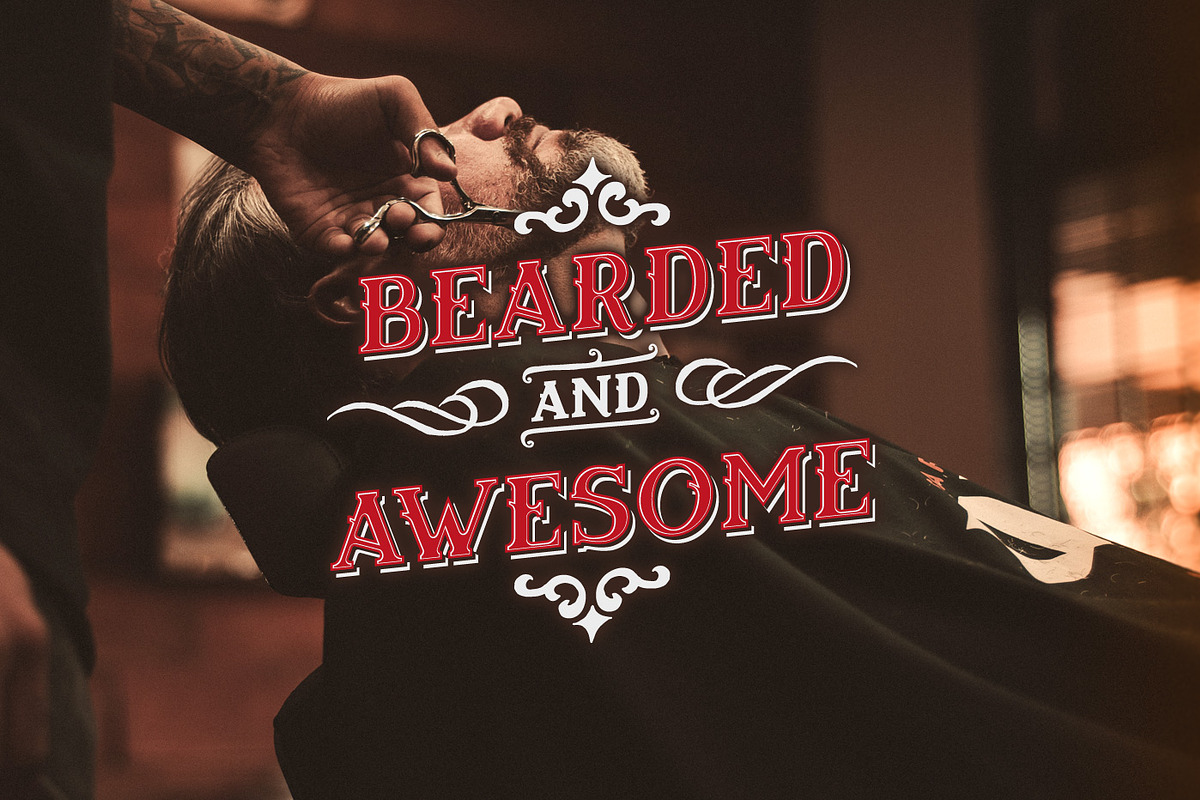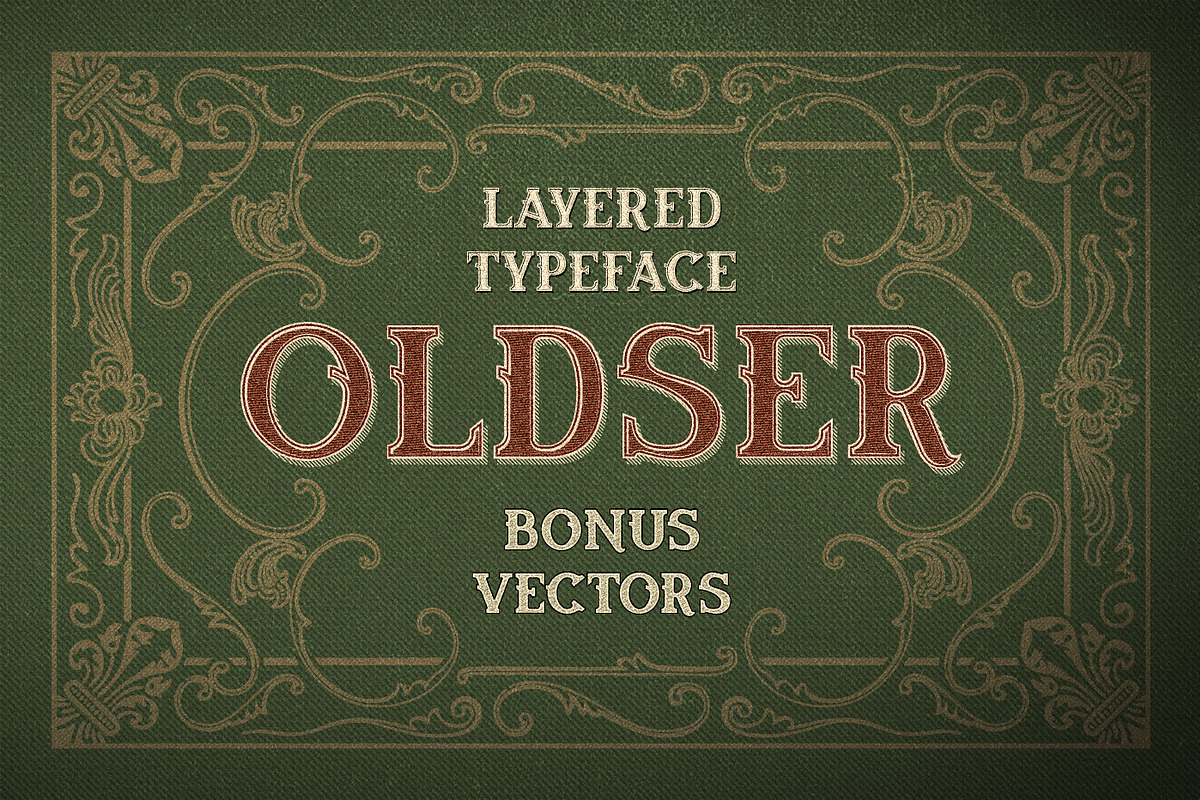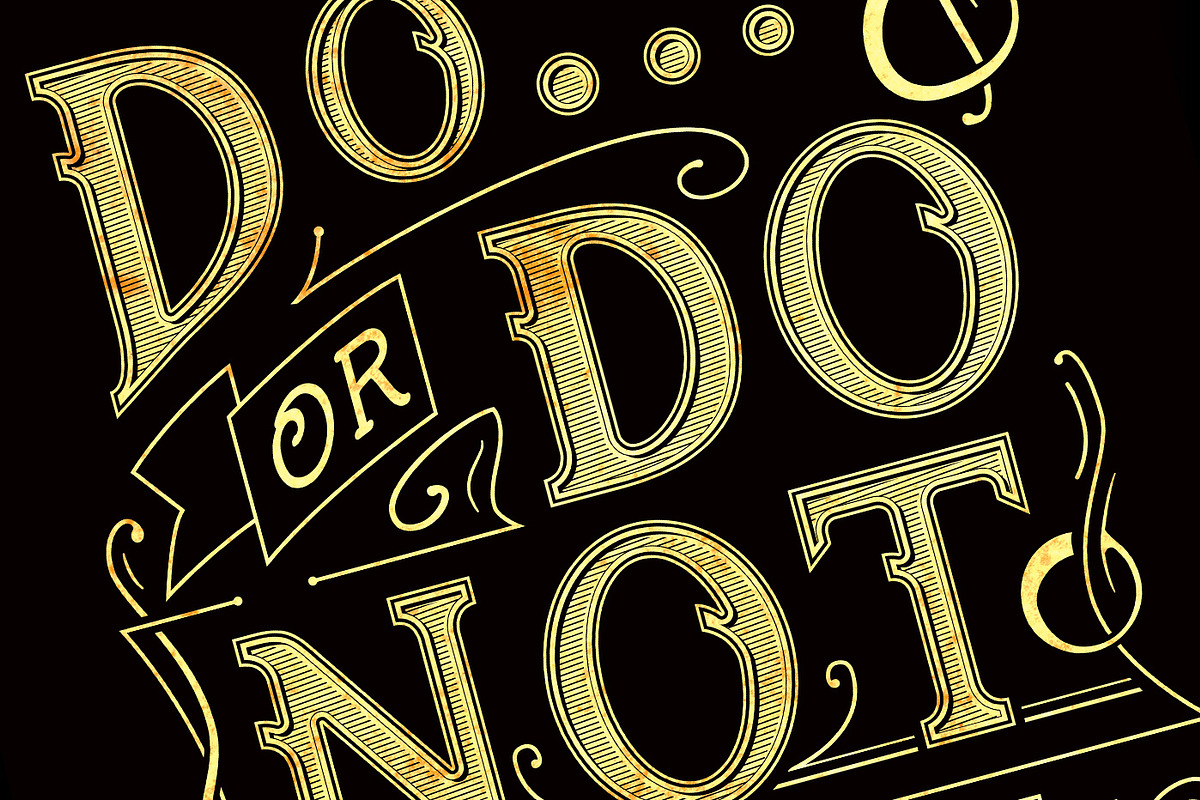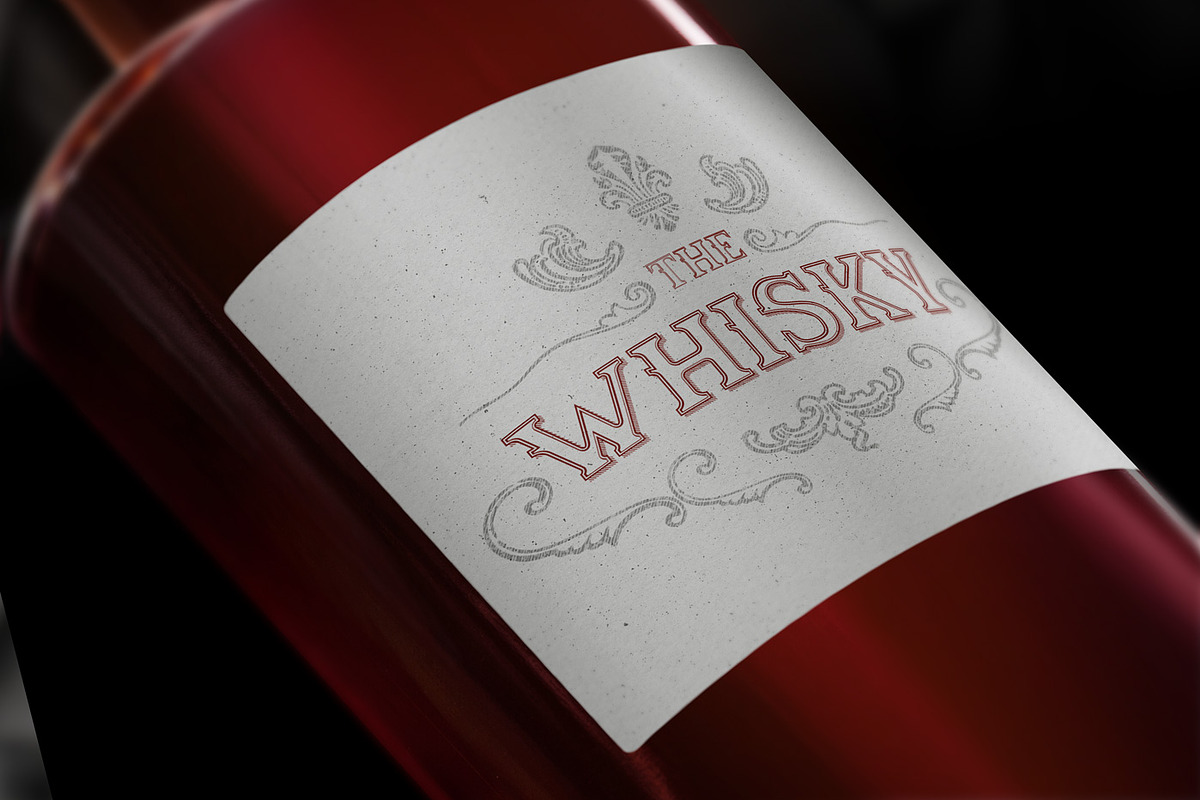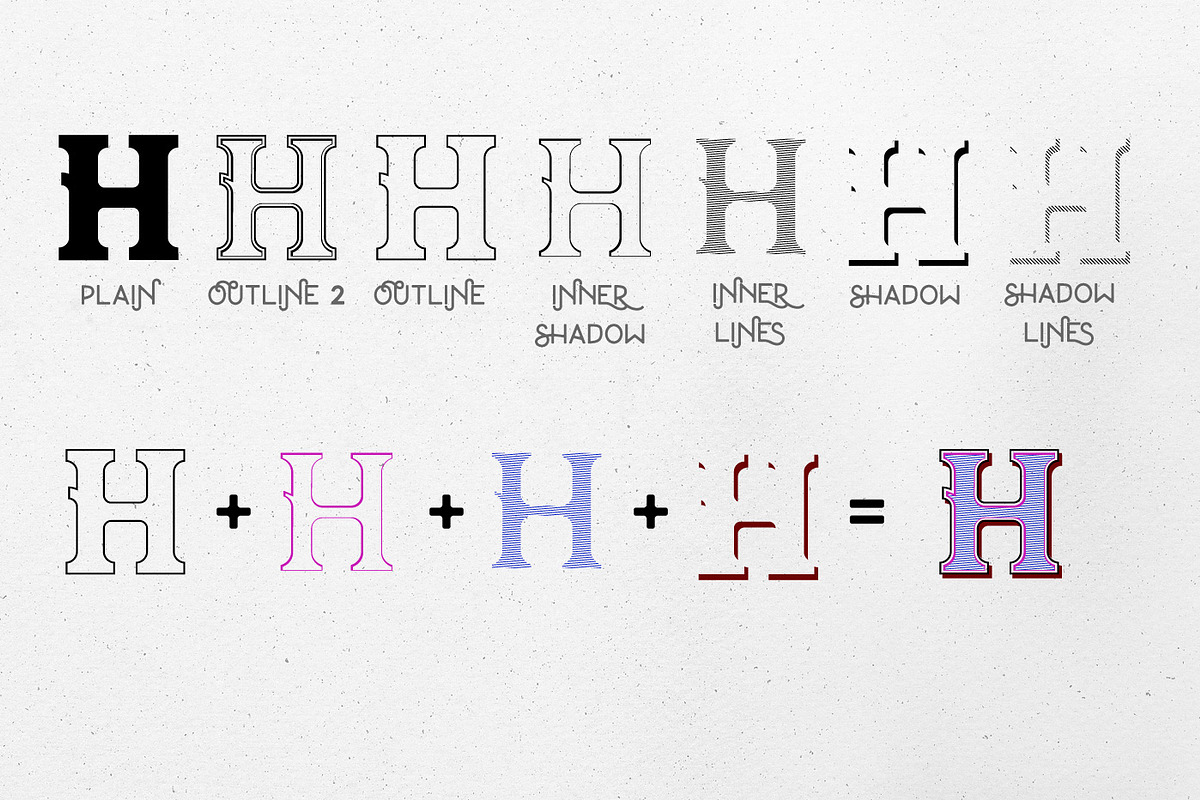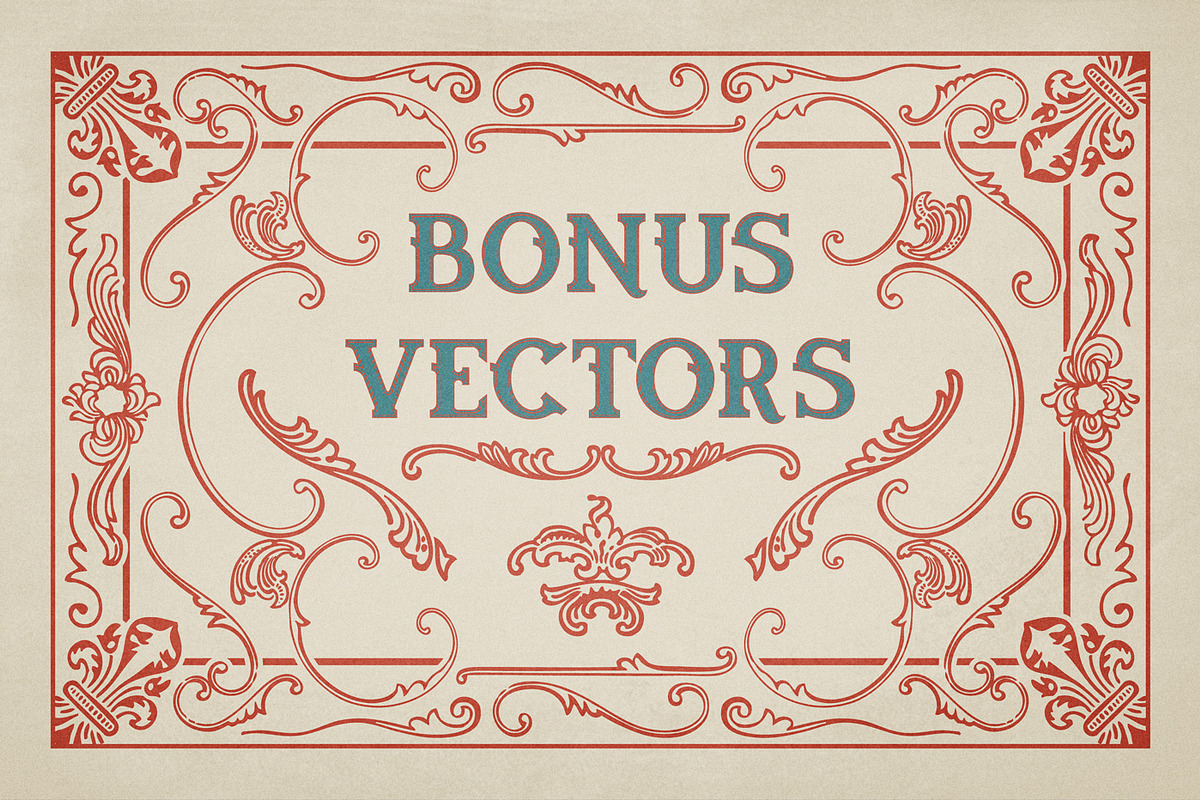
Oldser Typeface + Bonus Vectors
Oldser is vintage display multi-layered type family.
It's inspired by vintage/victorian look of lettering.
Oldser, as is bold and beautiful, will be the best choice to create: Posters, Logos, Quotes, Headers, Clothing, Labels, Packaging etc.
Bonus ornaments are scanned from some of XIX century books and vectorized. I kept irregularity and roughness to keep its authenticity